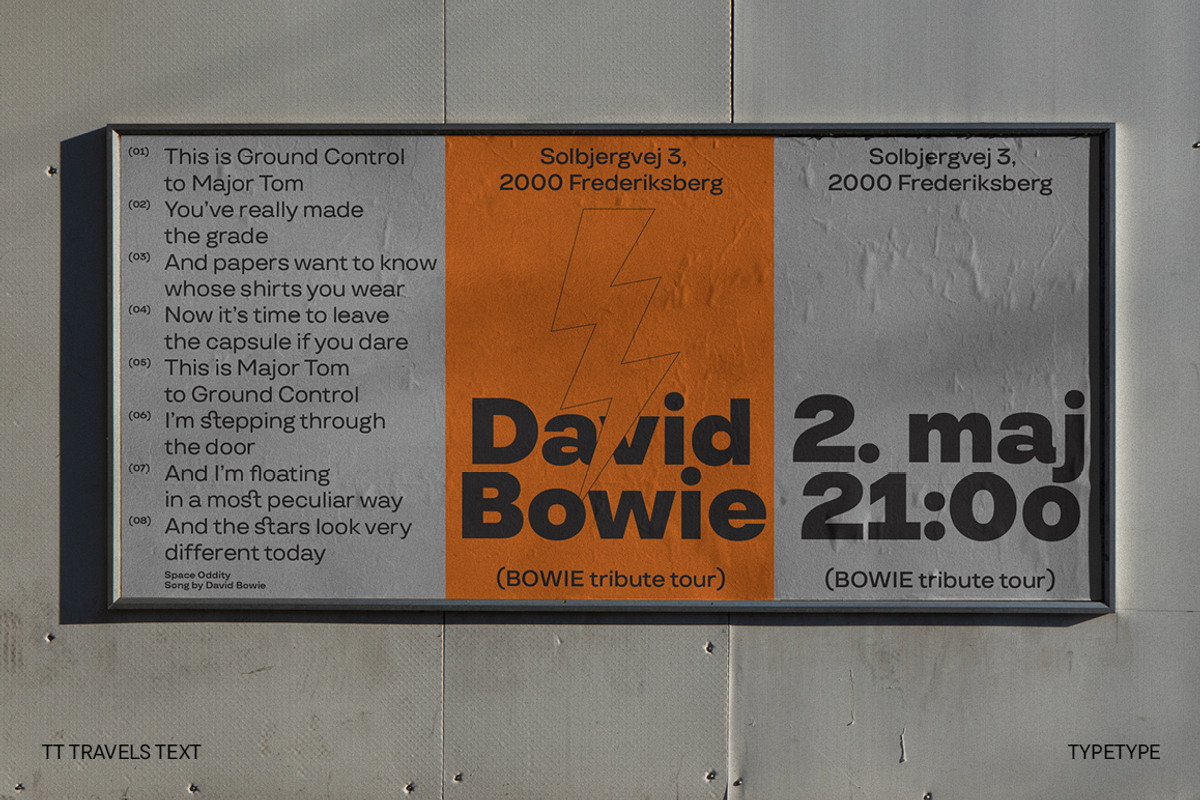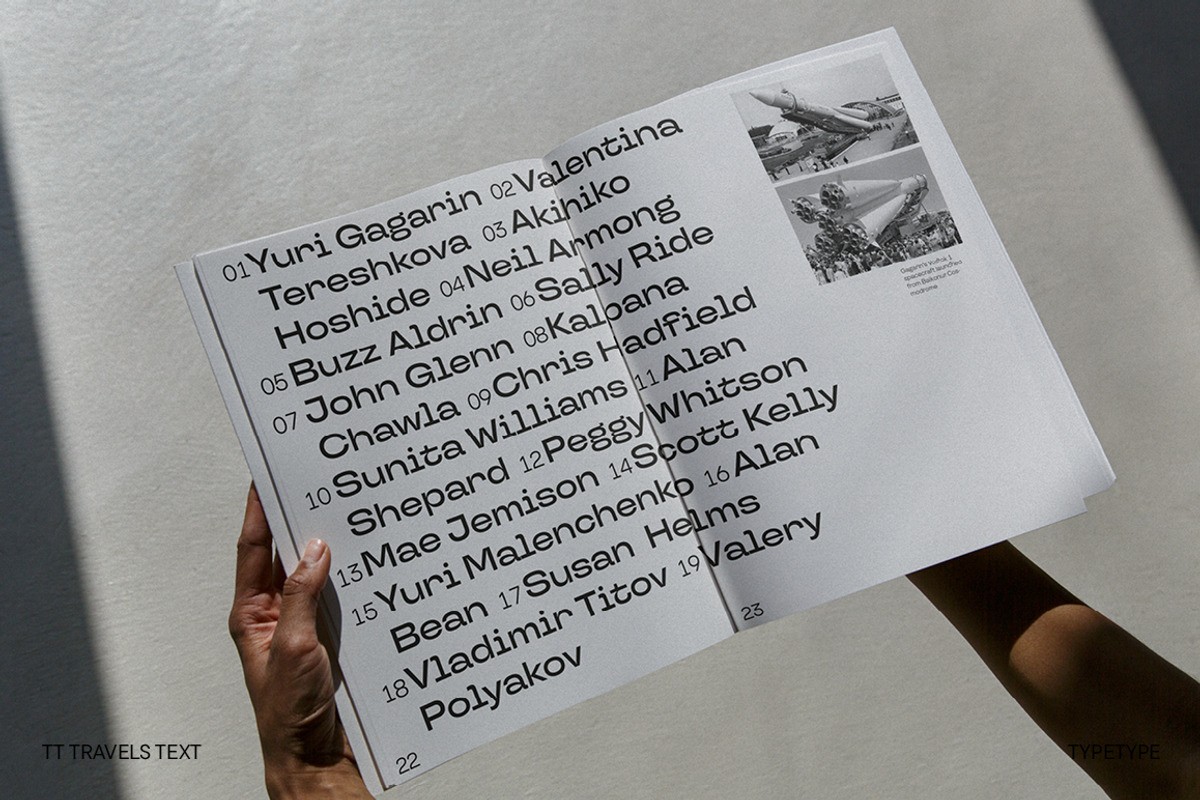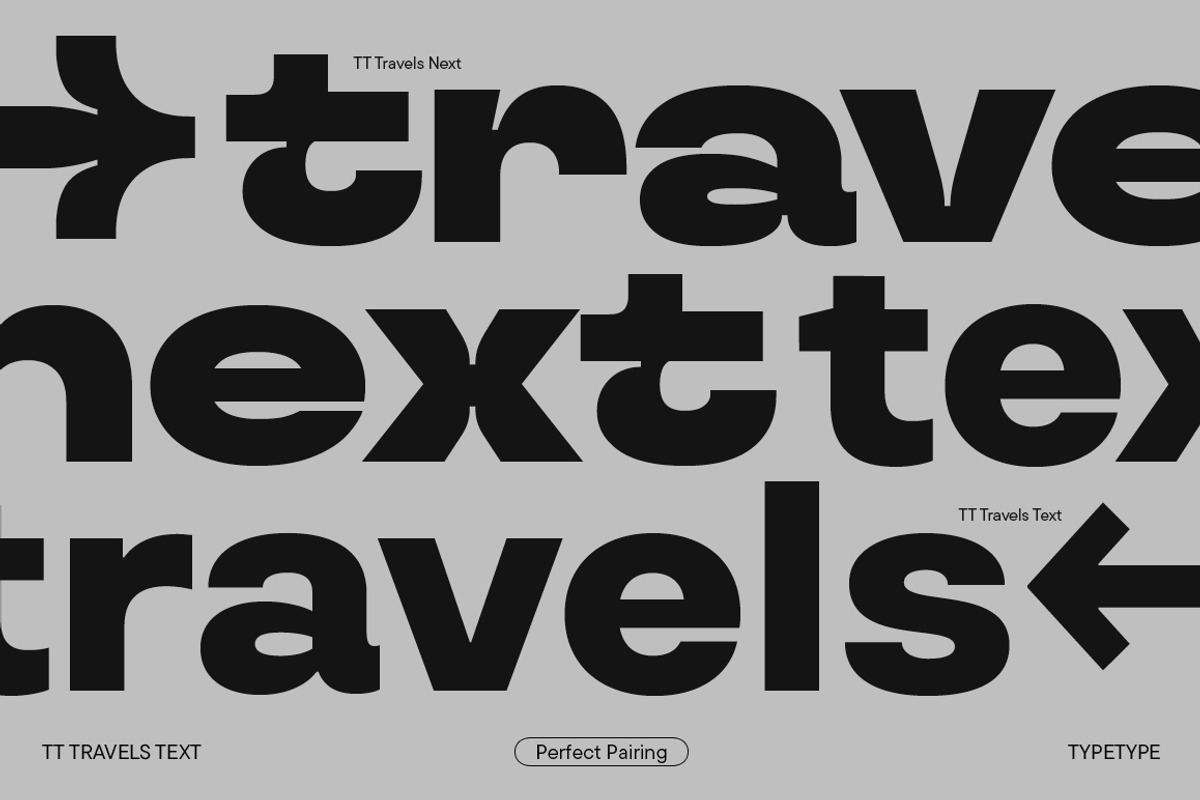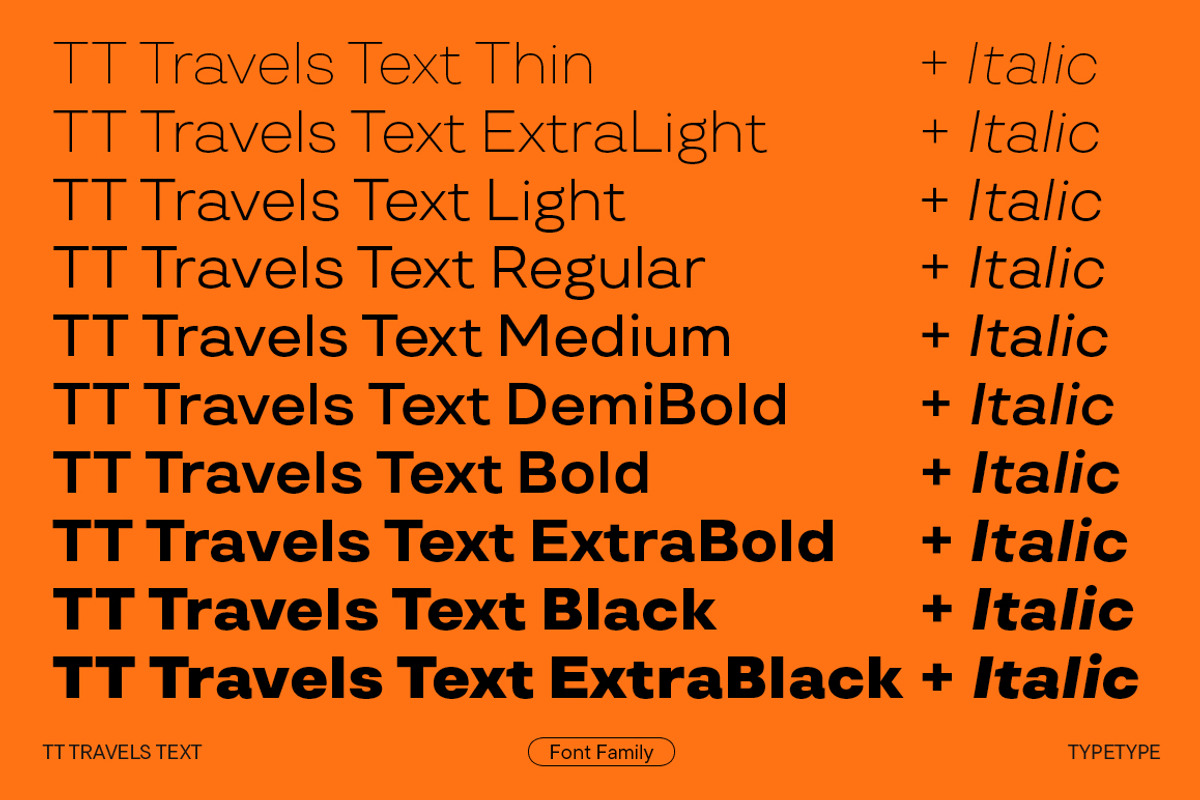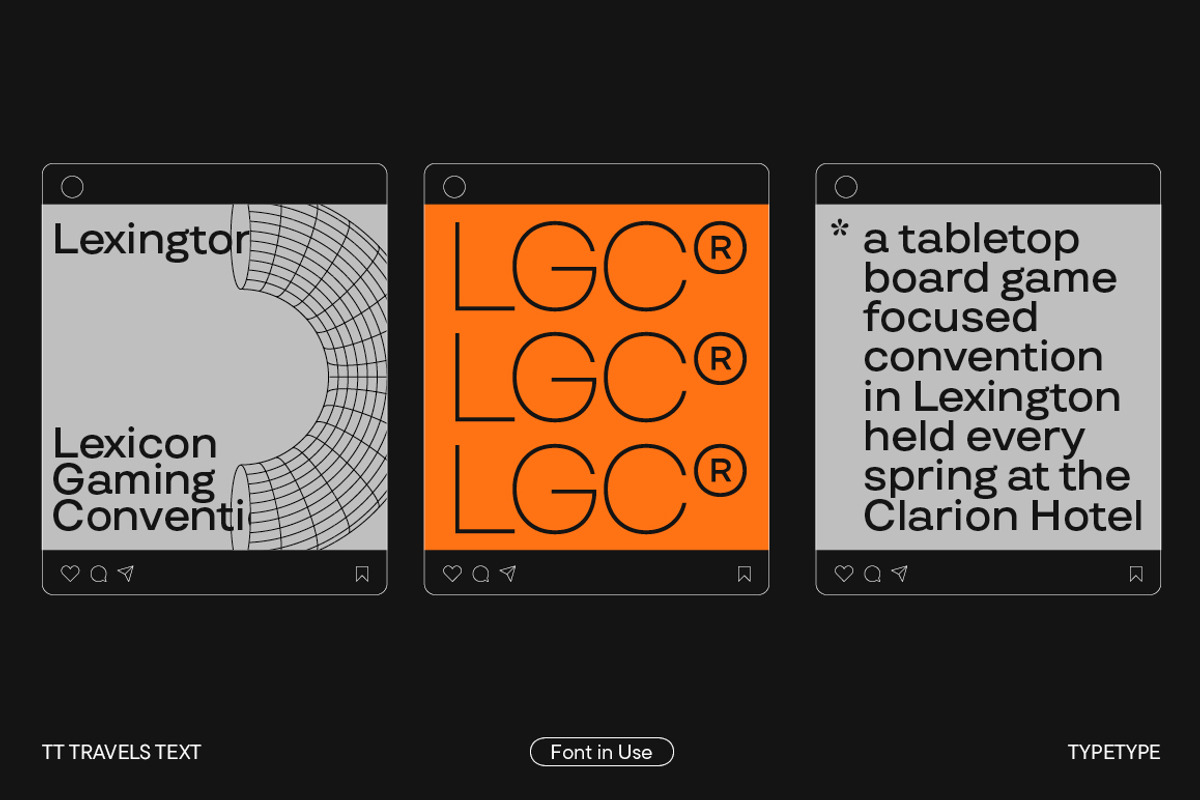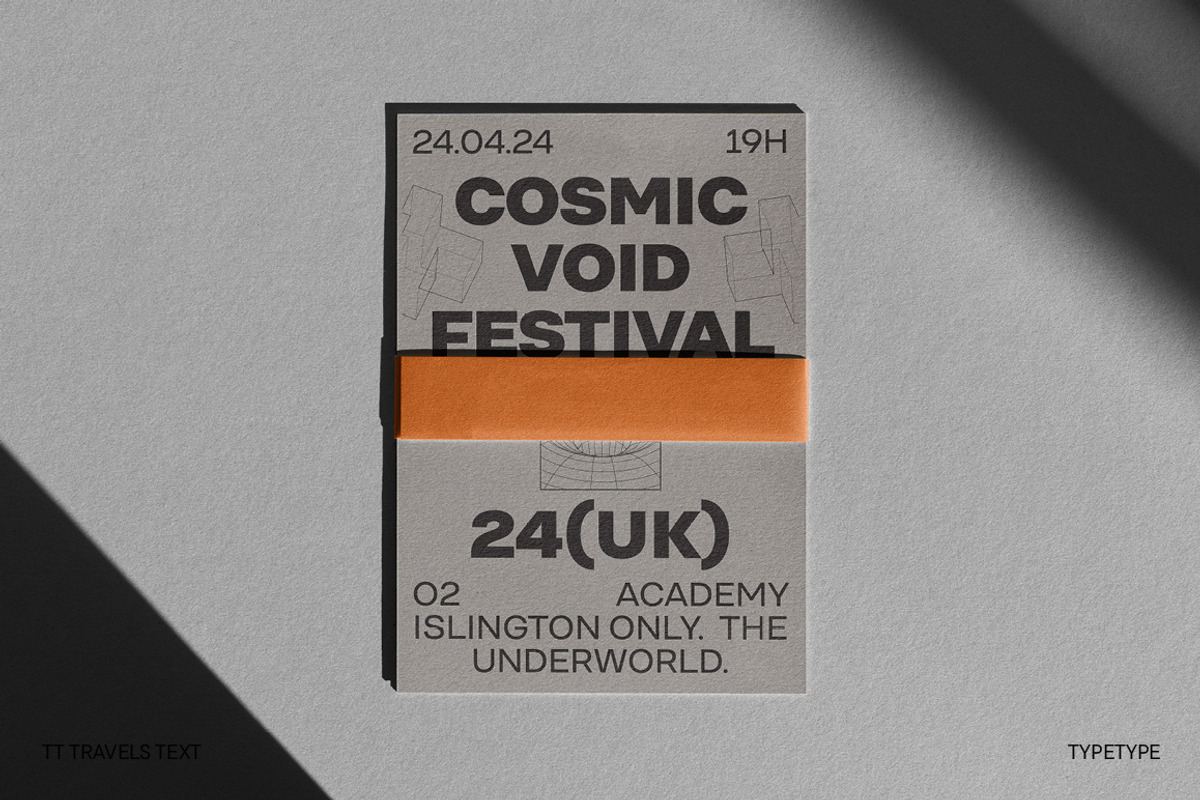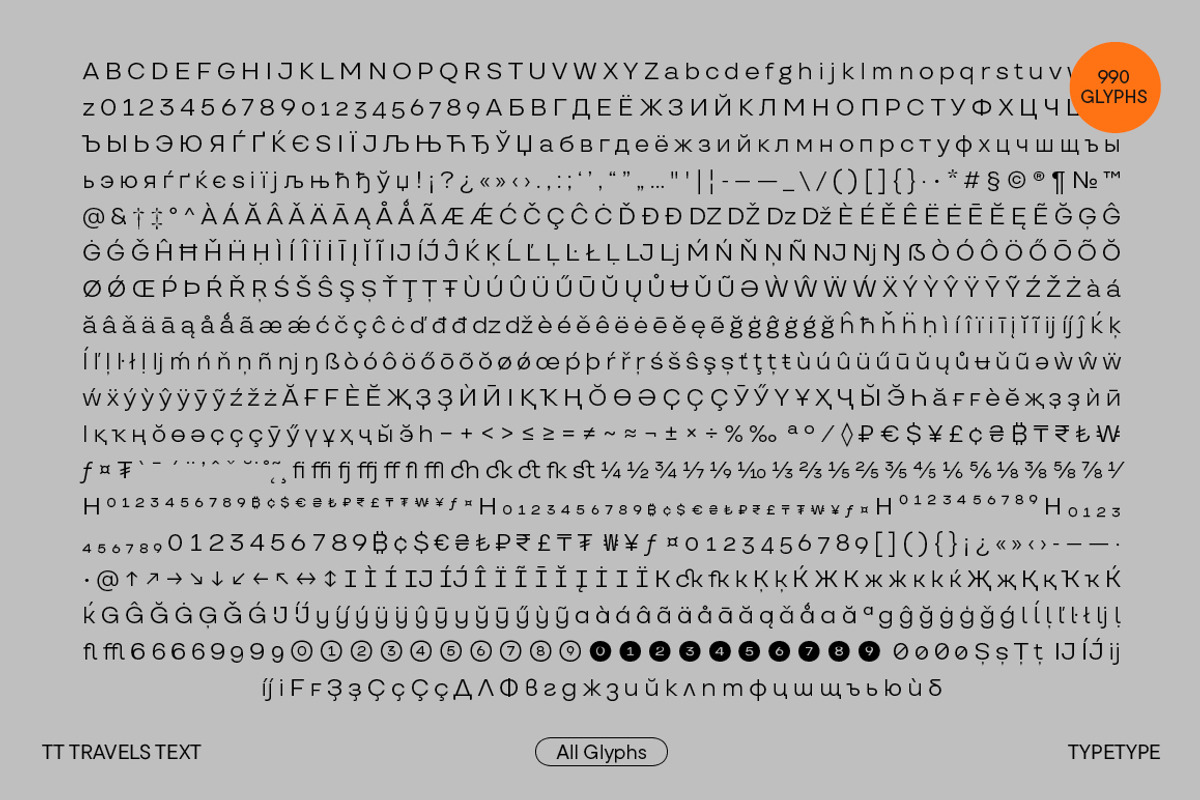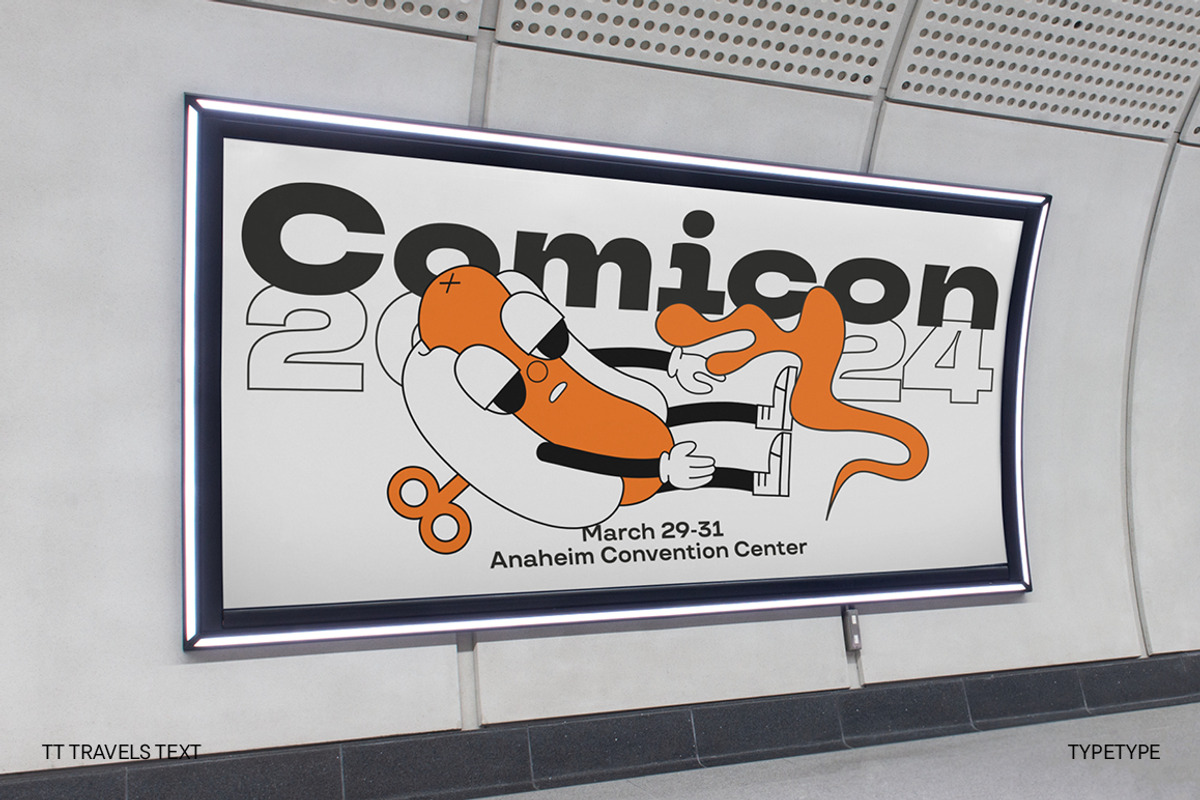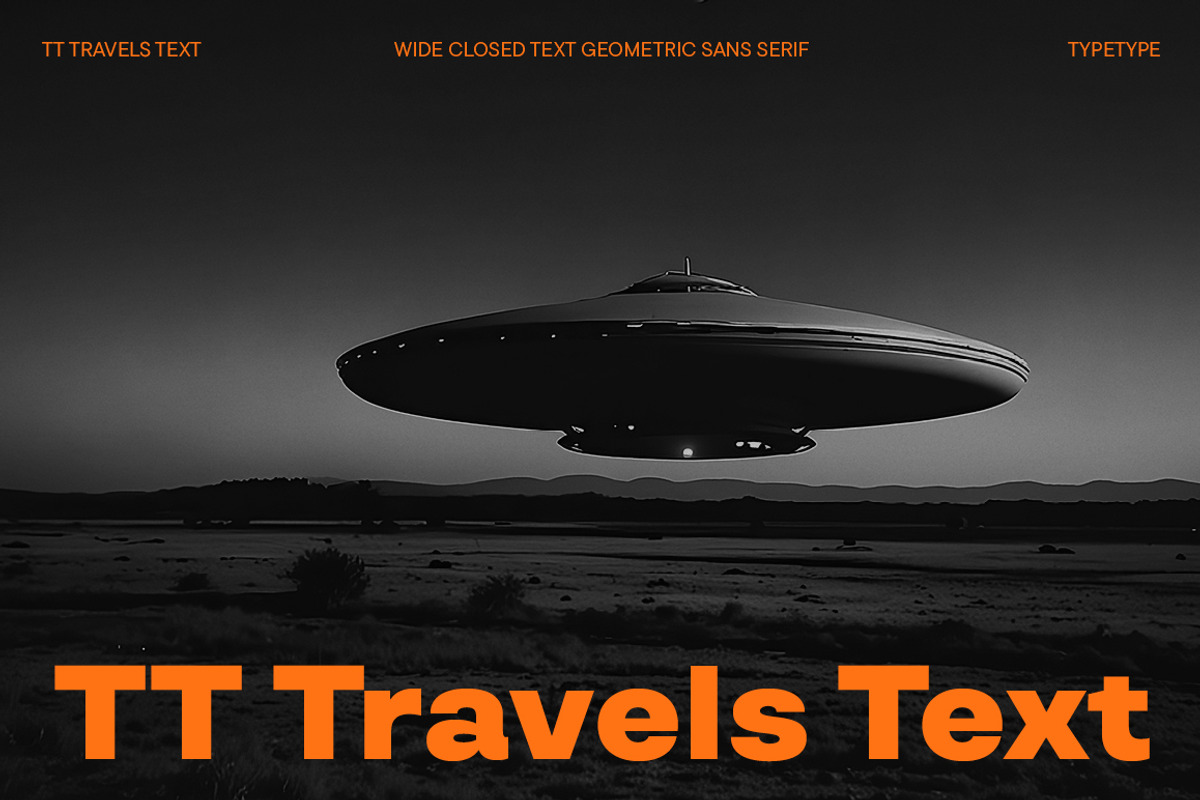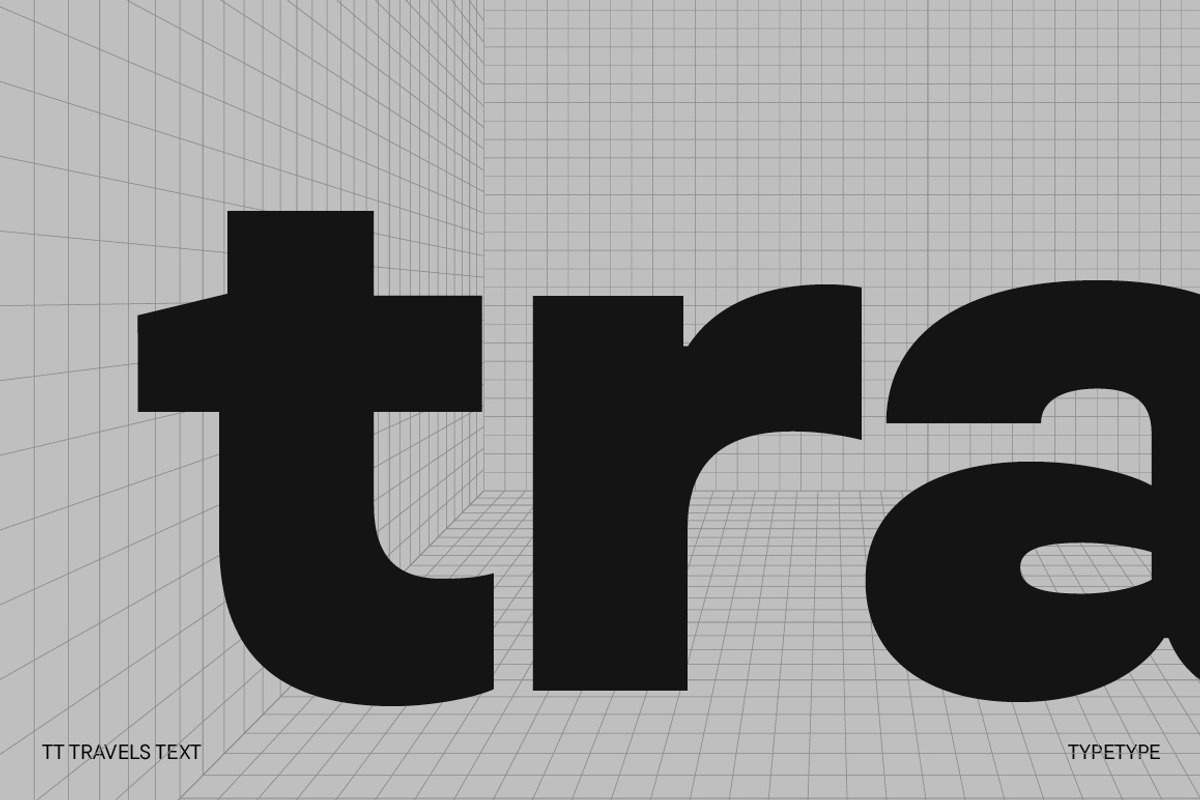
TT Travels Text
Introducing TT Travels Text—TypeType's new text font based on the legendary TT Travels.
TT Travels Text is a geometric sans serif with wide proportions. When creating this font, our goal was to maintain the central idea and recognizable features of the familiar TT Travels, making it cleaner and more modern. As a result, we have an independent typeface that perfectly complements TT Travels Next as a pair and equally excels in solo work.
The key visual features of TT Travels Text are wide proportions and slightly squared forms of ovals. To make the typeface readable, we increased the height of lowercase letters and opened the aperture more compared to the original TT Travels. We also worked on the proportions and contours, slimmed down the oval shapes, and reworked the master weights to harmonize the text version and TT Travels Next as a pair. In addition, we removed ink traps in the bold font style, making the font's appearance more neutral and modern.
The new TT Travels Text boasts numerous helpful OpenType features. Stylistic sets include softer, more neutral forms. The expanded ligature sets graphic is now calm and smooth, supporting the overall mood of the typeface. The typeface also includes a variable font with two axes of variation to enhance its application range even more.
Thanks to the visual traits we mentioned above, TT Travels Text can be used in running text as well as brand identity, web, and printing—as an independent graphic accent. The typeface is an ideal, well-balanced match for book and magazine layouts, poster design, and packaging. However, due to the font's neutral character, the application range of TT Travels Text is almost limitless, and paired with TT Travels Next, the typeface unleashes its full potential.
TT Travels Text includes:
- 21 font styles: 10 roman, 10 italic, and one variable font with weight and slant axes of variation;
- 990 glyphs in each font style;
- 37 OpenType features with the possibility to replace certain glyphs with alternates;
- 230+ languages support.
TT Travels Text—a stylish text sans serif for any project!
Full list of OpenType features: aalt, ccmp, locl, subs, sinf, sups, numr, dnom, frac, ordn, tnum, onum, lnum, pnum, case, dlig, liga, ss01 (Alternative I), ss02 (Alt. Latin K, k and Cyrillic Zhe, zhe, K, k), ss03 (Alternative G), ss04 (Alt. Latin IJ, ij, y and Cyrillic y), ss05 (Alt. Latin a, g and Cyrillic a), ss06 (Alternative l), ss07 (Alternative 6, 9), ss08 (Circled Figures), ss09 (Negative Circled Figures), ss10 (Slashed Zero), ss11 (Romanian Comma Accent), ss12 (Dutch IJ), ss13 (Catalan Ldot), ss14 (Turkish i), ss15 (Bashkir localization), ss16 (Chuvash localization), ss17 (Bulgarian localization), ss18 (Serbian localization), calt.